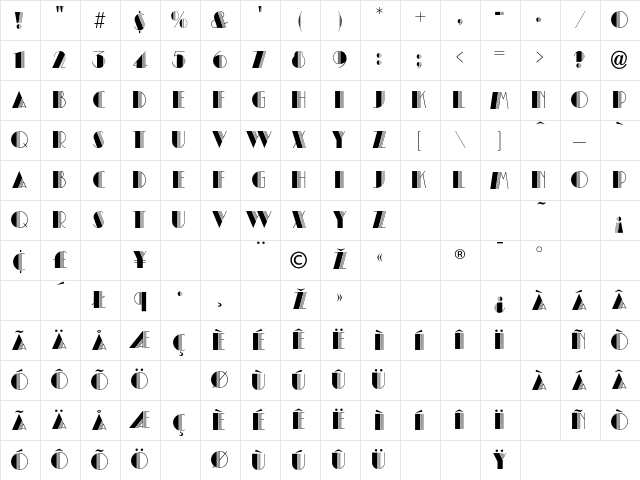
Alex Regular
Alex Family
Design Context for Alex
Alex is a composed and adaptable typeface that performs quietly and consistently across a wide range of design contexts.